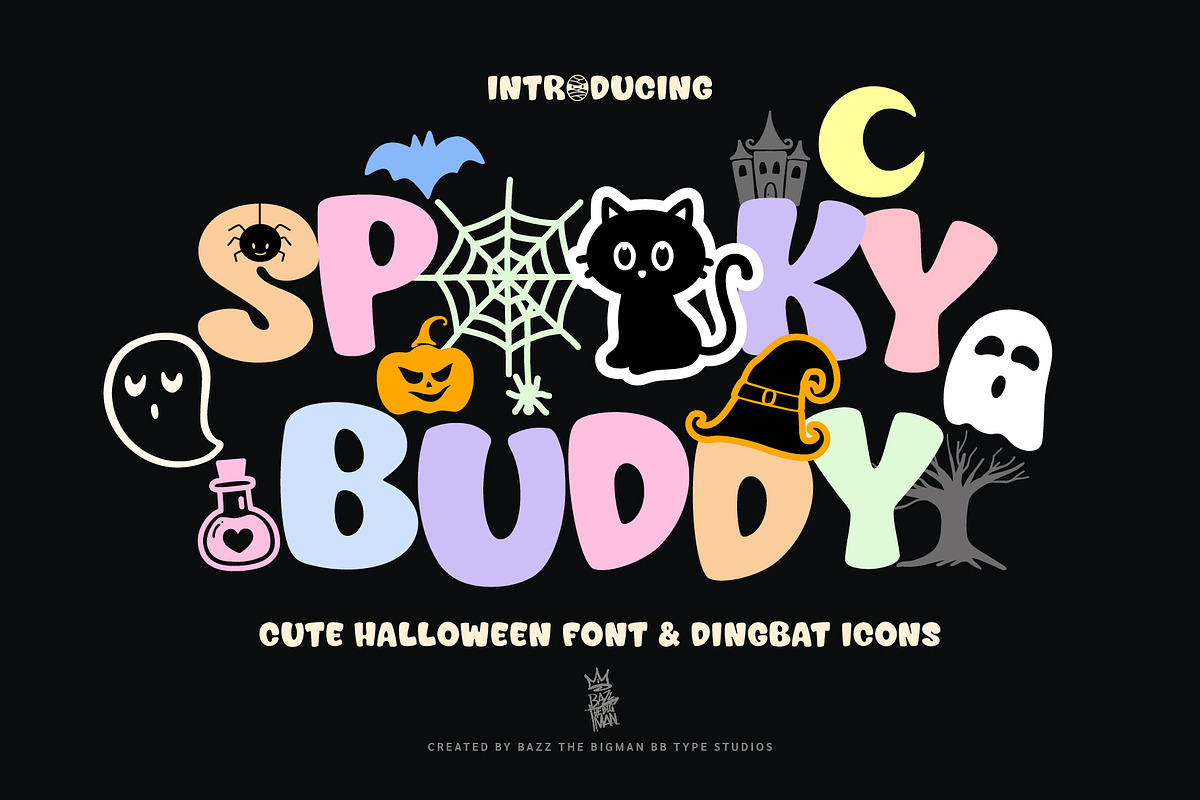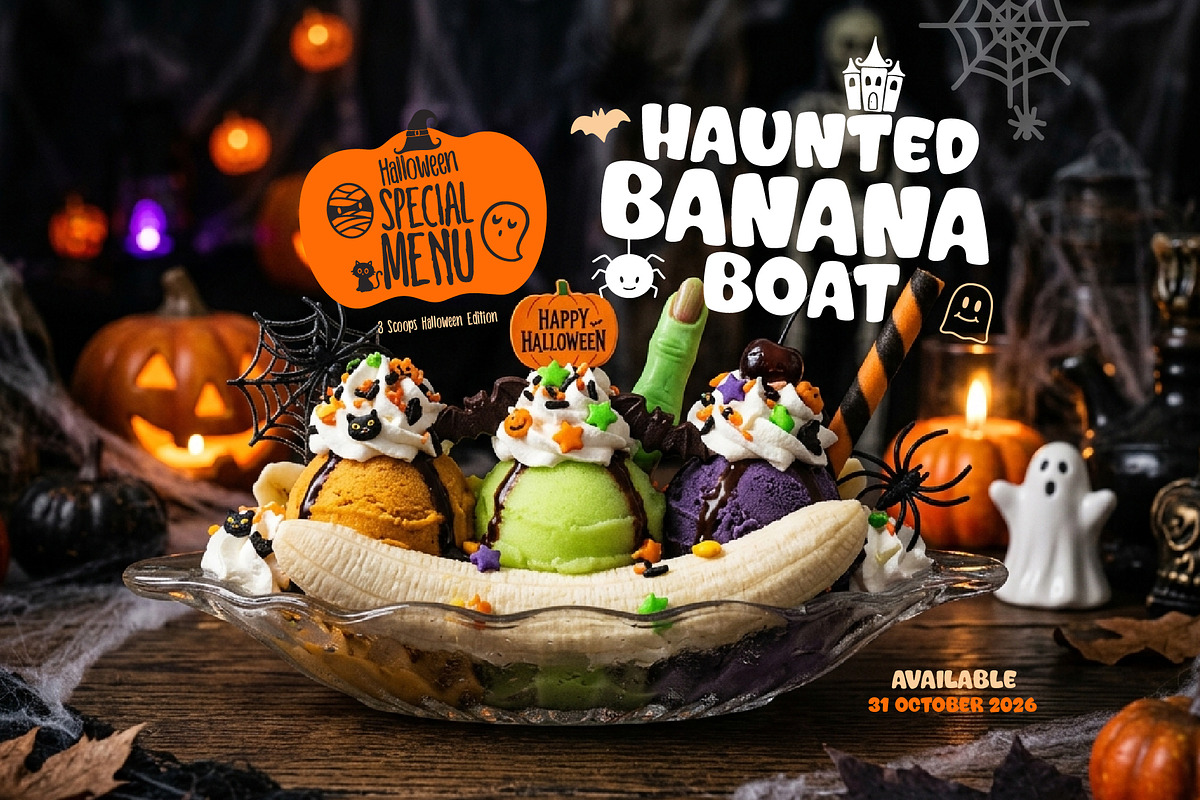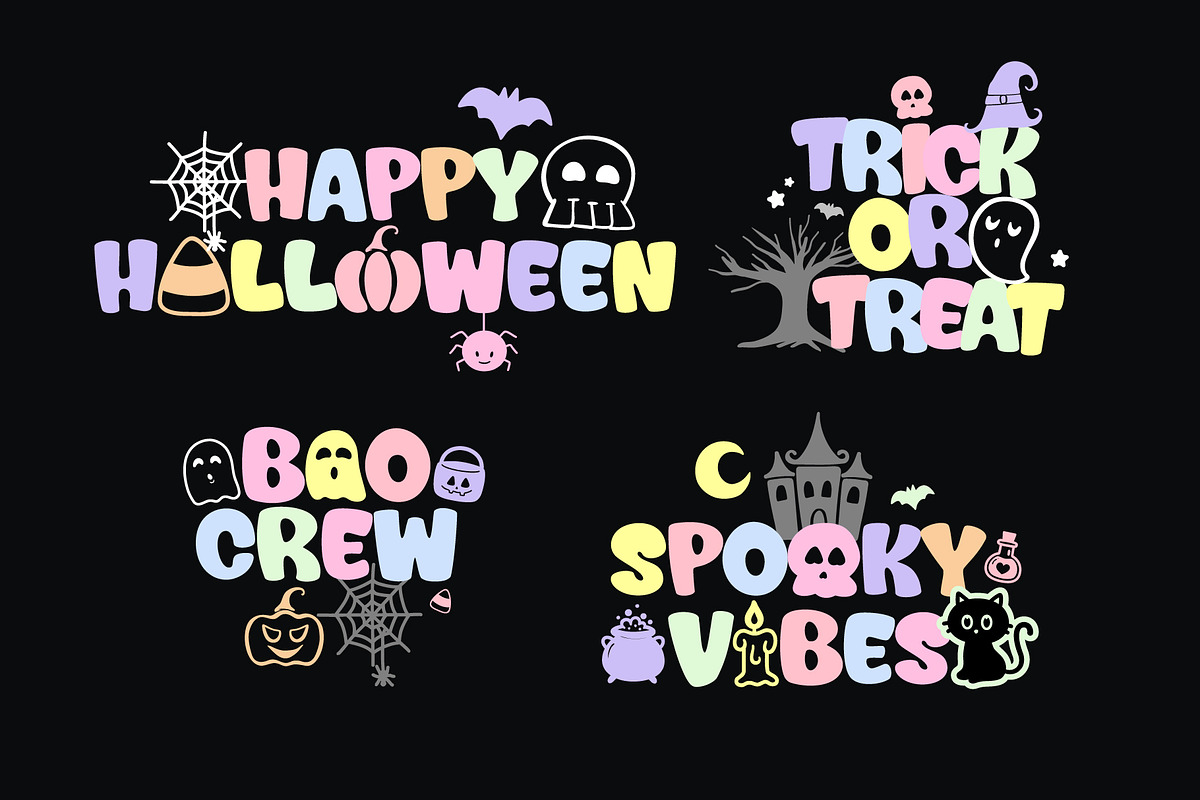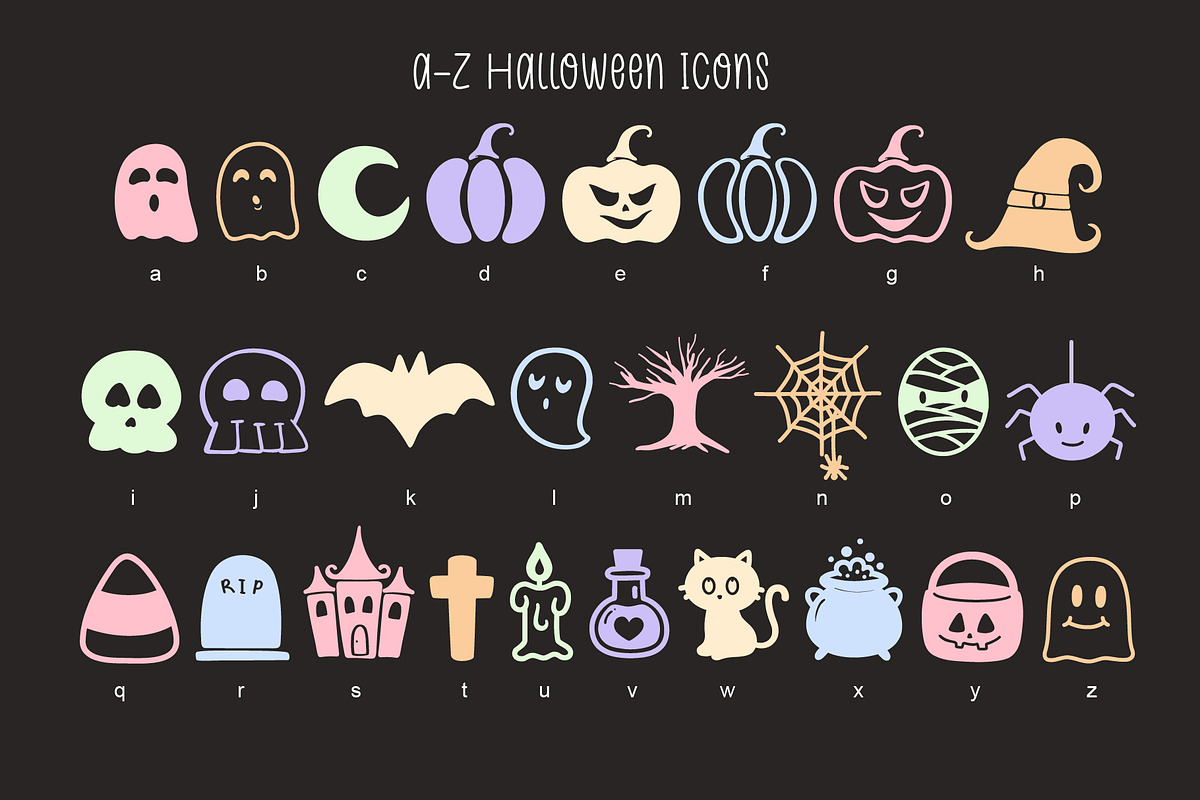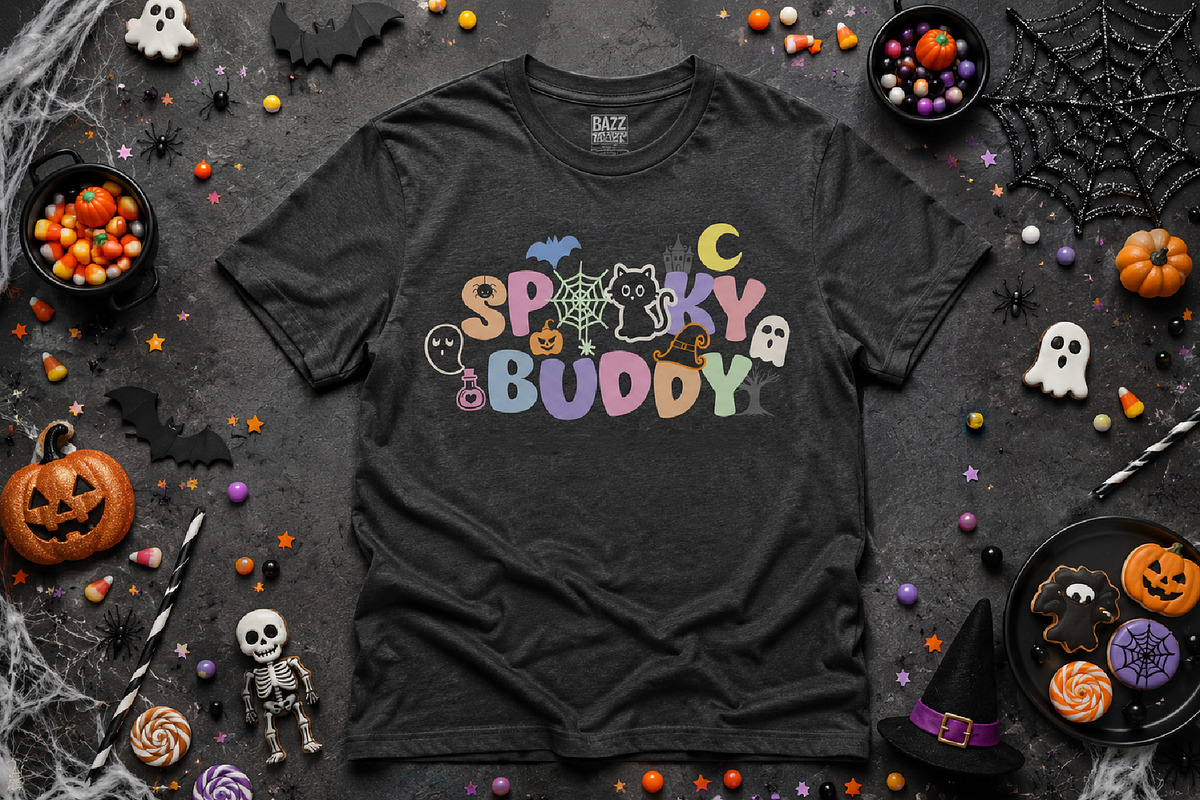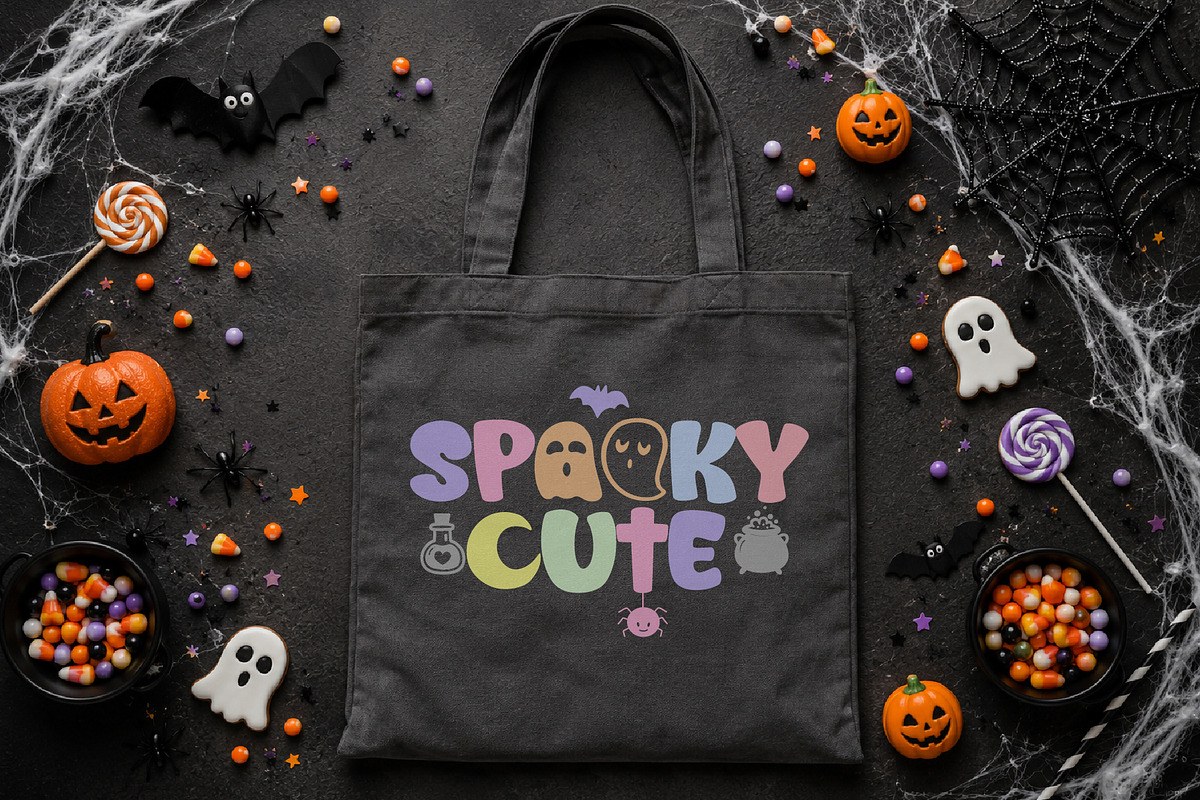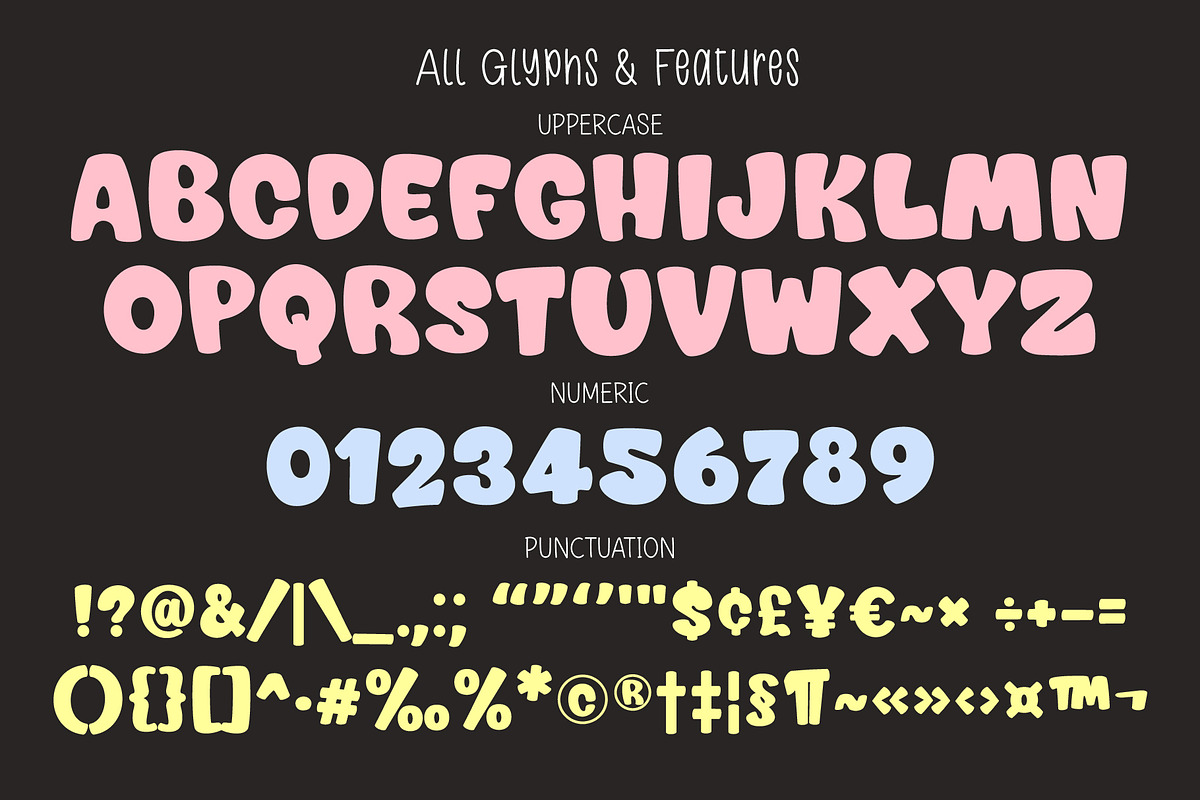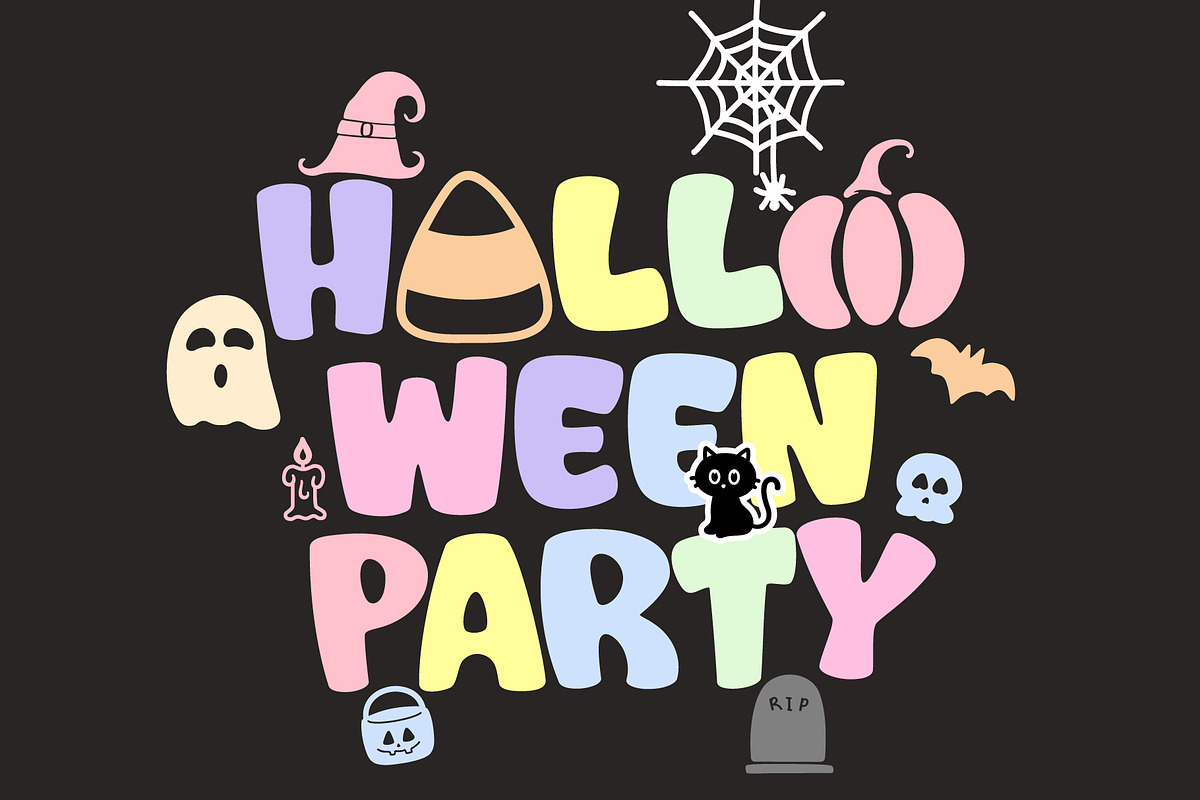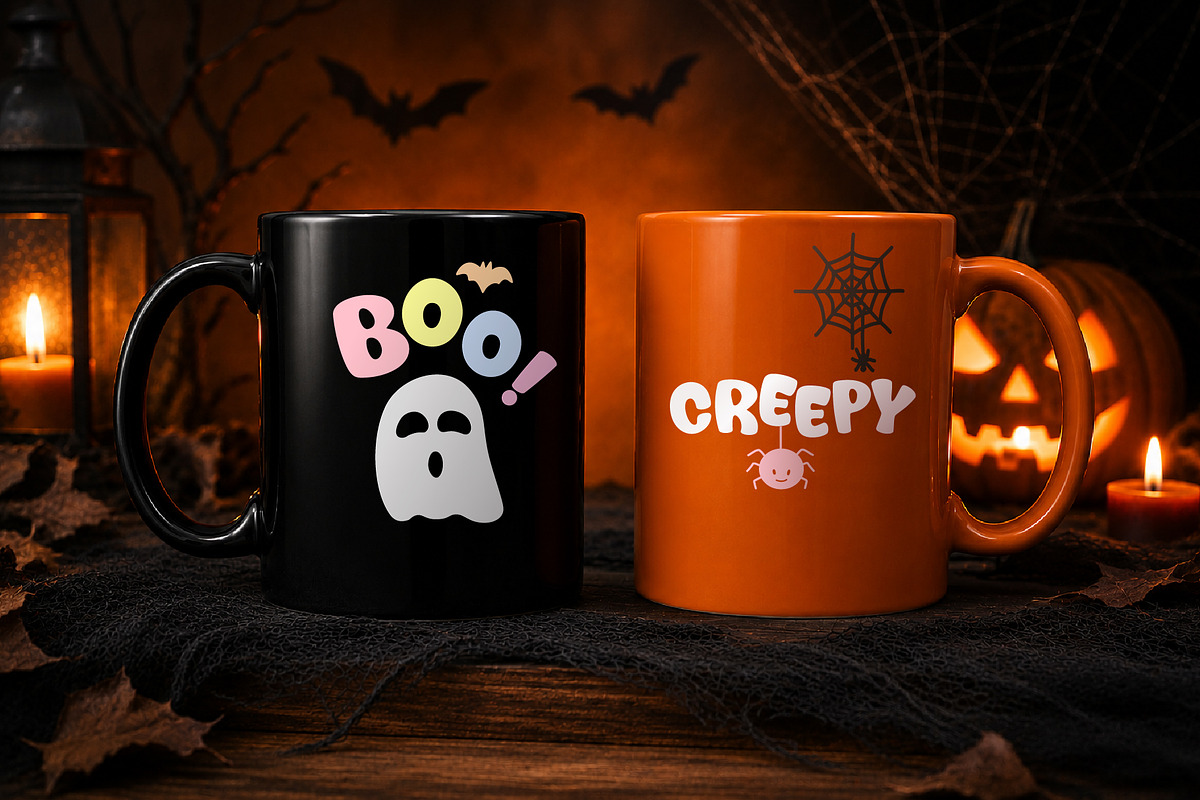
Spooky Buddy
Spooky Buddy is a cute Halloween display font combined with a playful set of Halloween dingbat icons.
This unique font features bold uppercase letters, fun Halloween-themed icons mapped to lowercase characters, numbers, and punctuation, making it perfect for party invitations, t-shirts, tote bags, stickers, posters, Cricut projects, seasonal decorations, and spooky craft creations.
Whether you're designing for Halloween parties, classroom activities, greeting cards, or handmade products, Spooky Buddy brings a fun and friendly spooky vibe to every project.